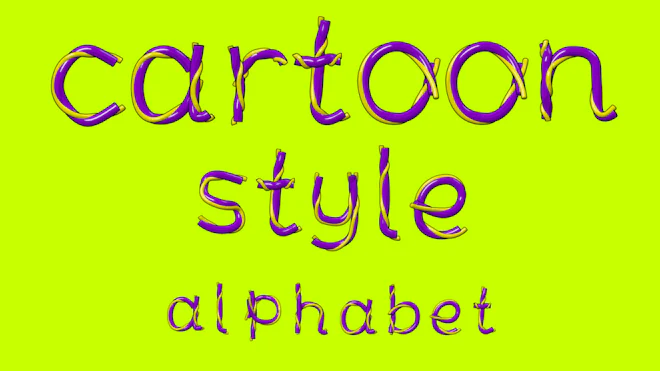
This stock motion graphics video pack includes 53 different clips of purple-yellow jelly typefaces - letters, numbers and symbols on a transparent alpha channel.